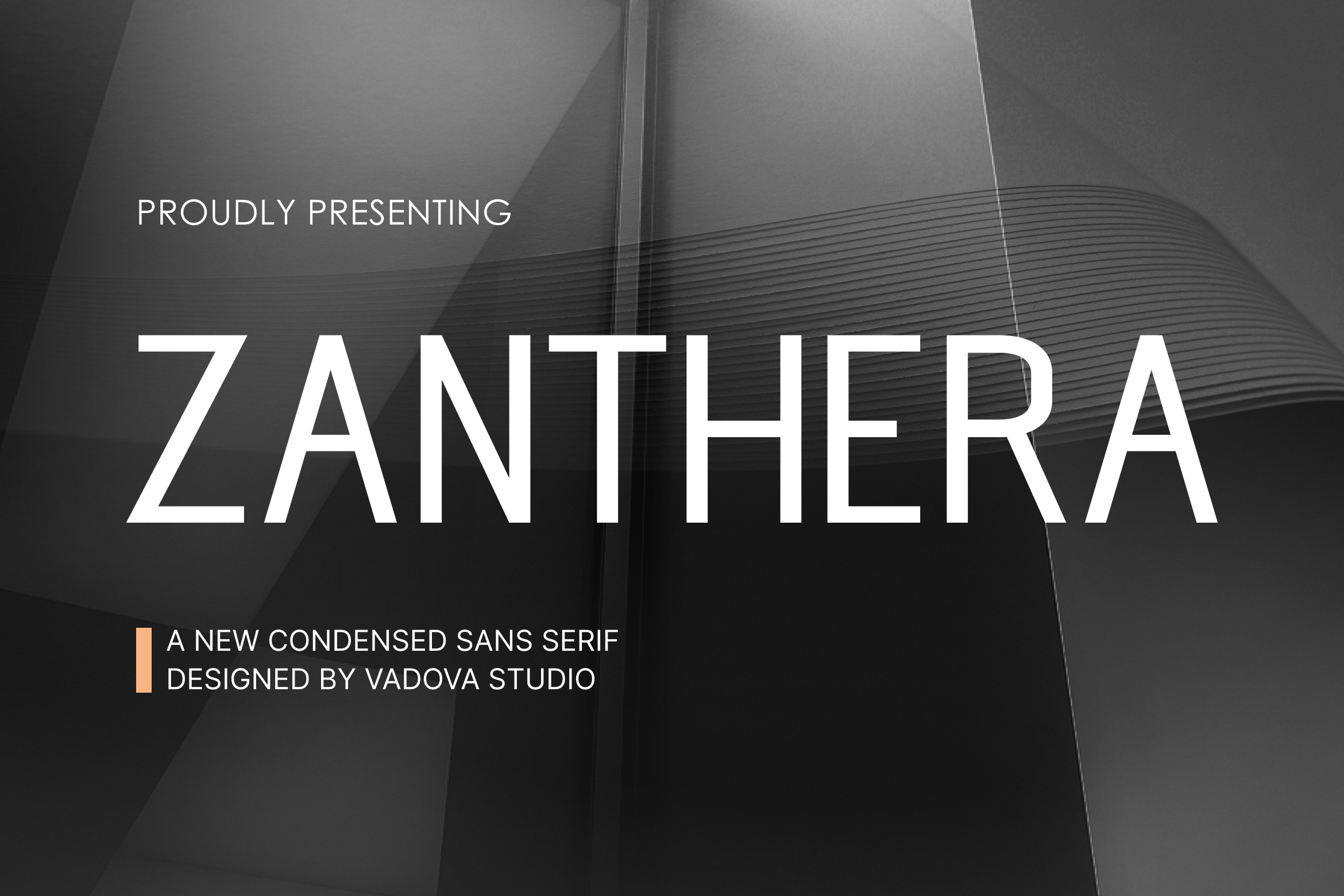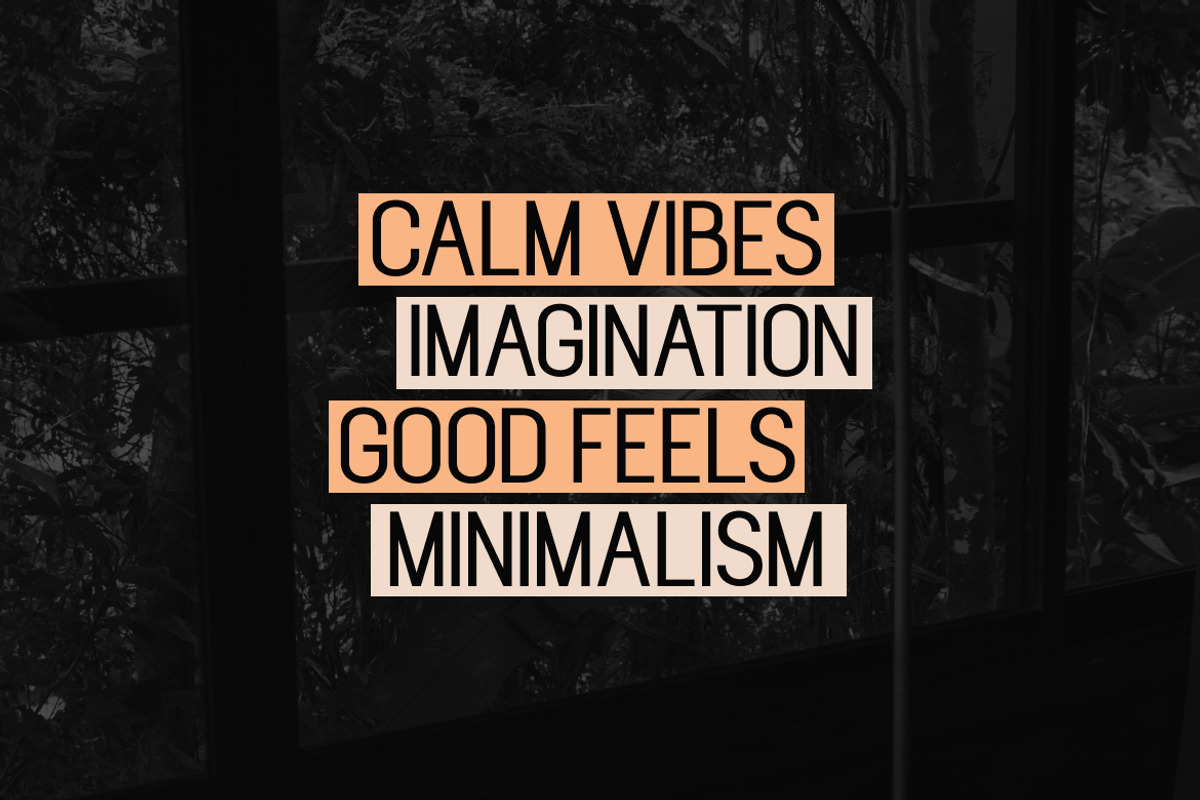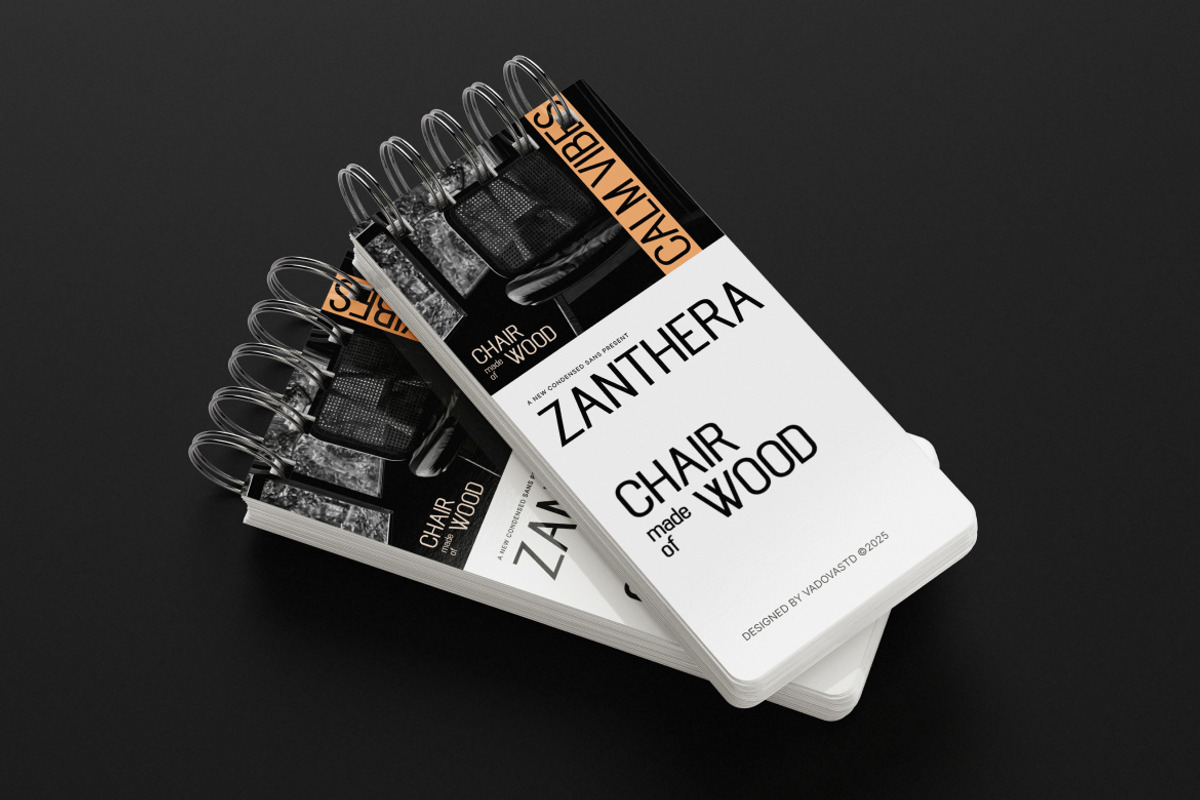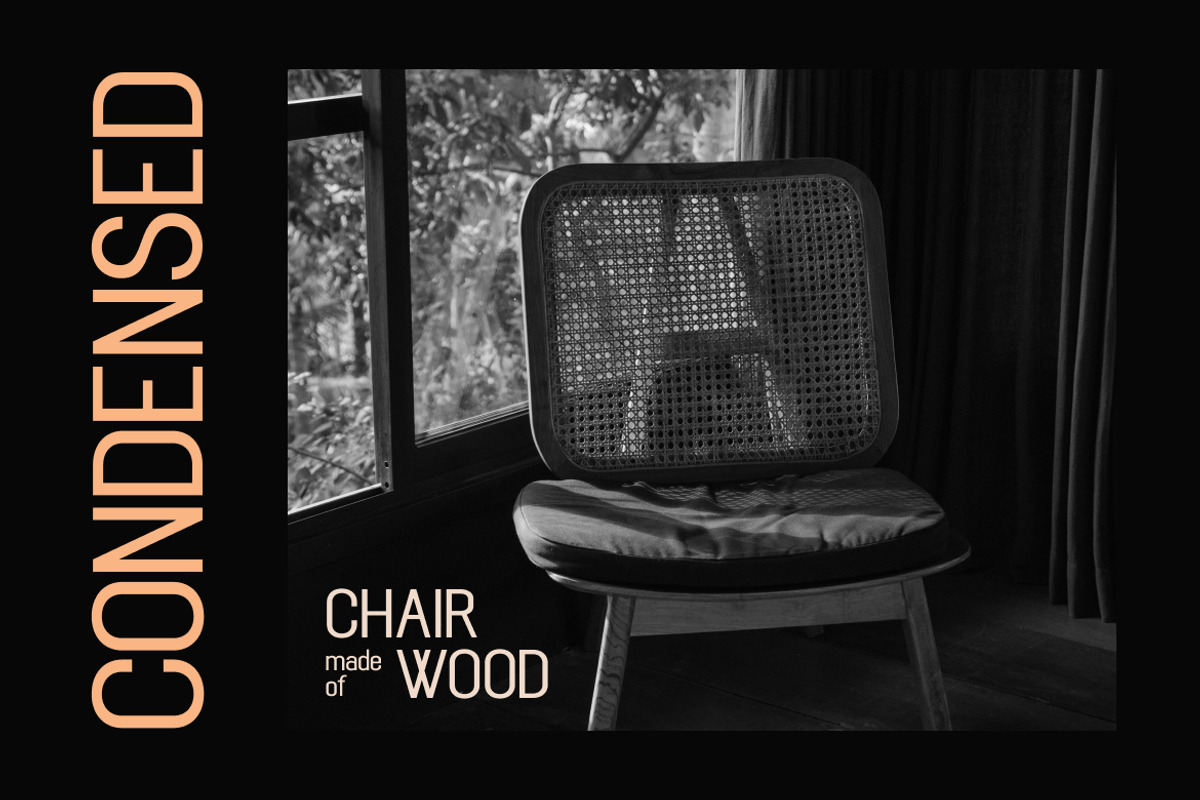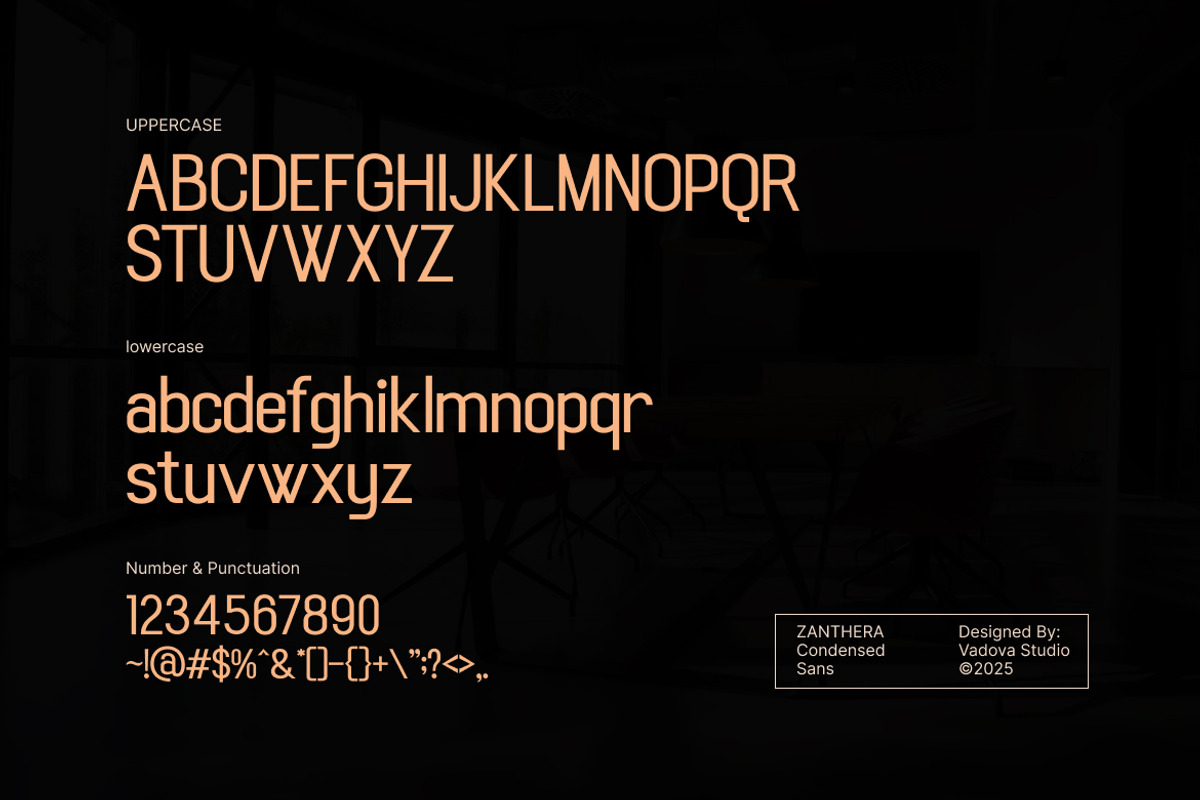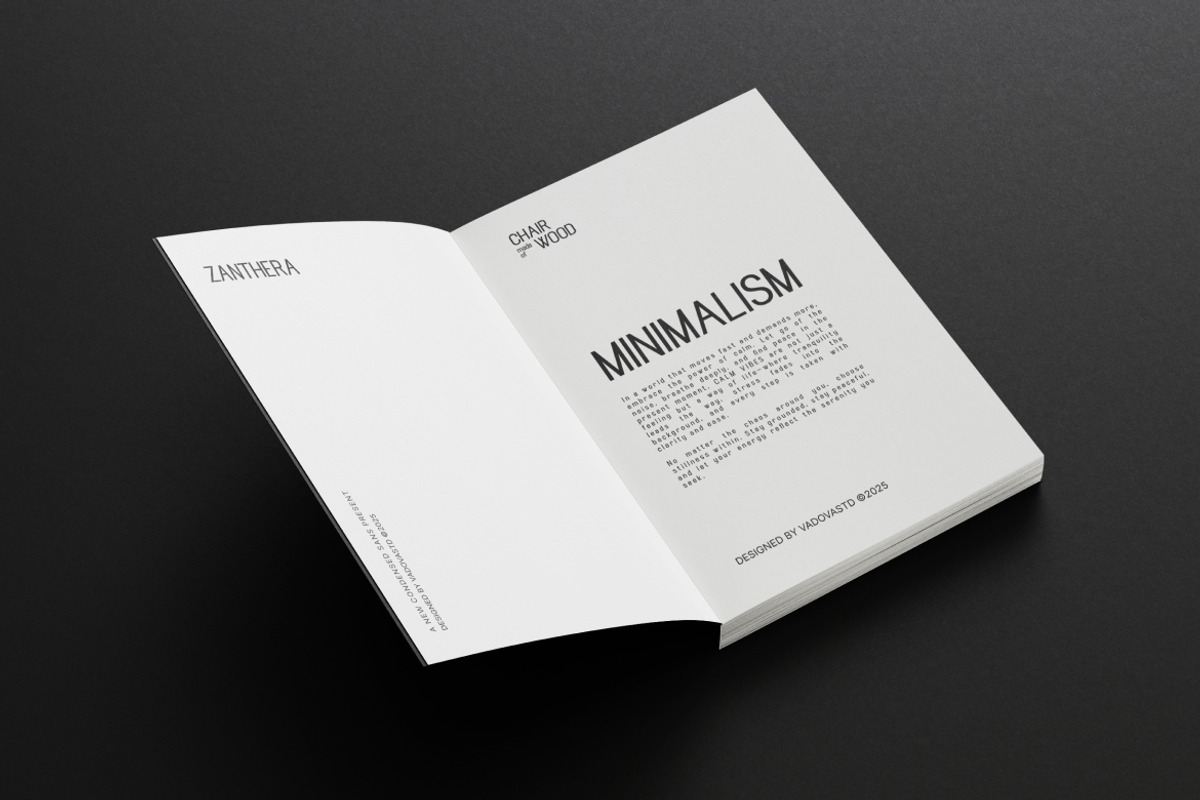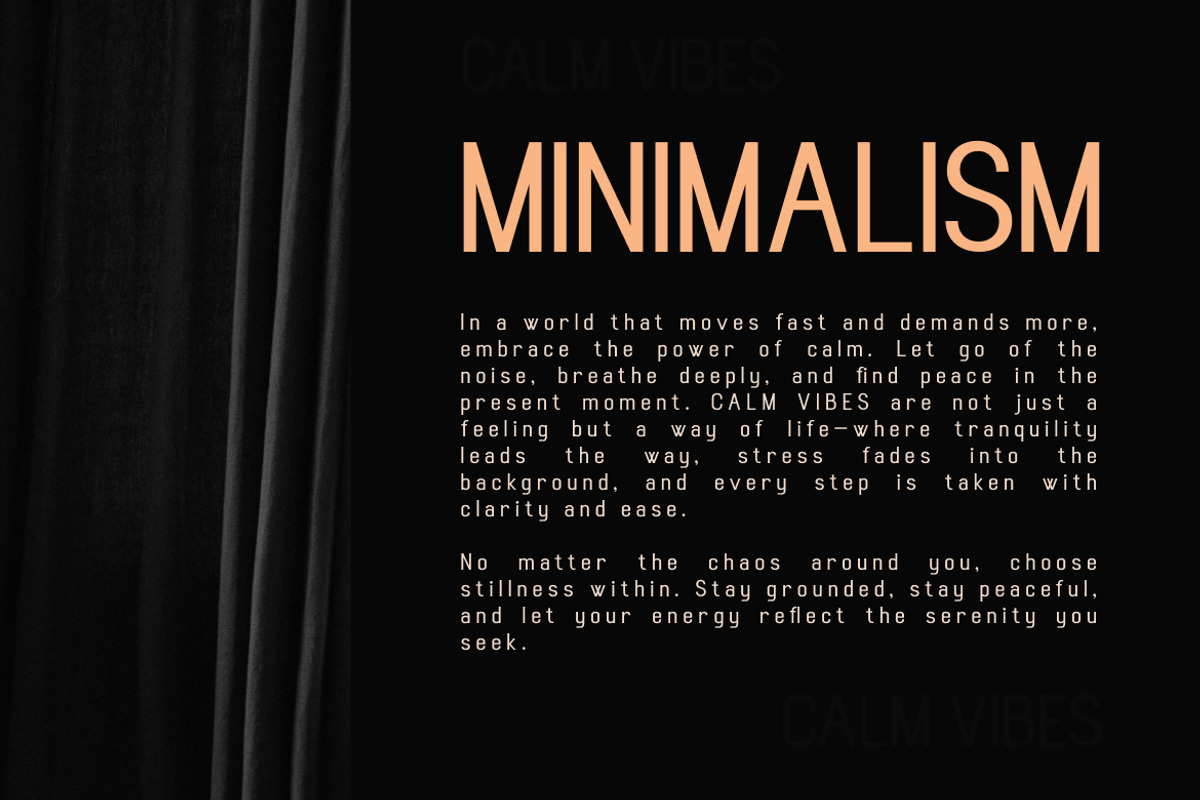
Zanthera – Condensed Sans Serif Font
Zanthera is a clean and condensed sans serif typeface built for clarity and precision. Designed with tall proportions and sharp edges, it delivers a strong modern presence ideal for branding, headlines, editorials, and digital design. Each character maintains balance between geometric form and legibility, resulting in a timeless, professional look.
This typeface fits perfectly across a wide range of creative fields—from fashion magazines to tech branding—offering a refined aesthetic that stands out without distraction.
Font Highlights
Condensed sans serif structure
Uppercase & lowercase characters
Numerals and punctuation
Clean geometry with tight spacing
Perfect for branding, editorial, and modern interface design
Why Designers Love Zanthera
Elegant Simplicity – Minimalist form with maximum impact.
Condensed Form Factor – Optimized for narrow spaces and modern compositions.
Versatile Usability – Works seamlessly across print and digital platforms.
Professional Appeal – Perfect for tech, fashion, and corporate identities.
Best Applications
Branding and visual identity systems
Editorial and magazine layouts
Headline and advertising typography
User interface and app design
Corporate presentation and professional decks
Minimalist product packaging
Zanthera brings refined clarity and timeless sophistication to every project — where elegance meets modern precision.